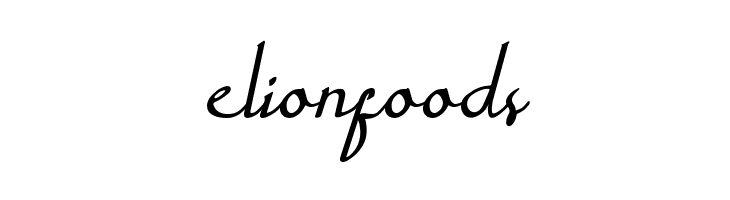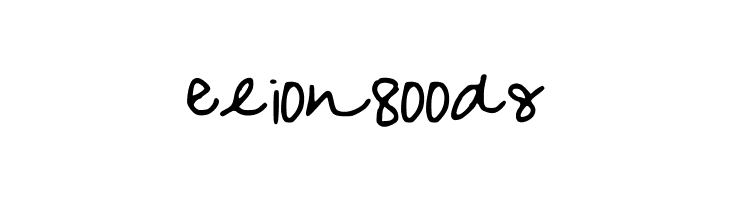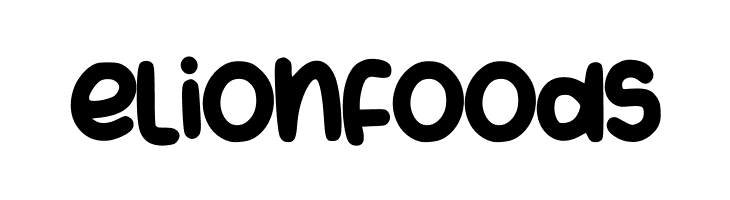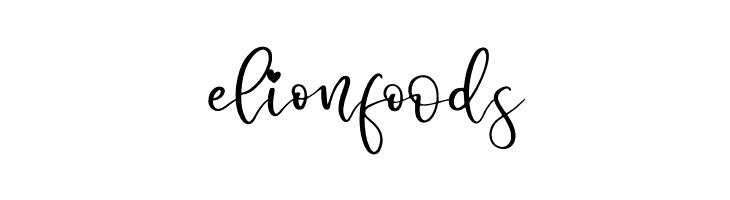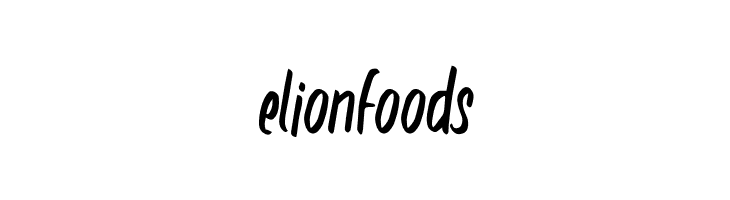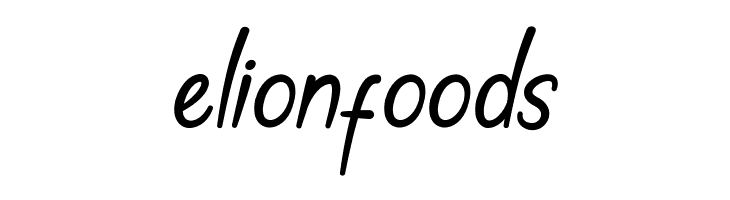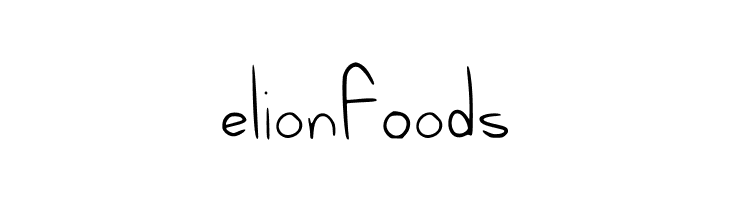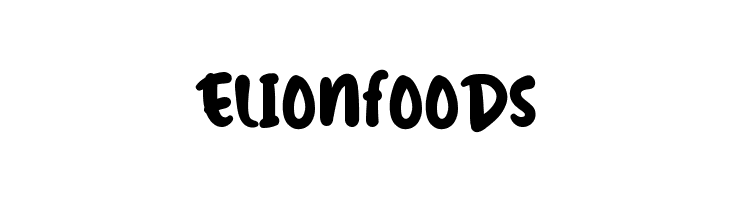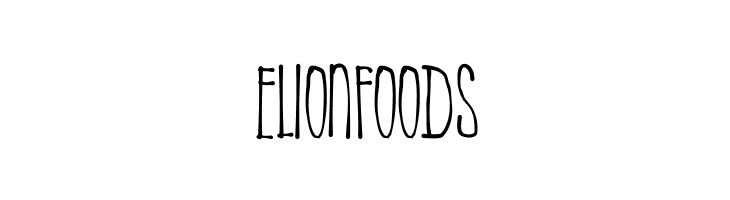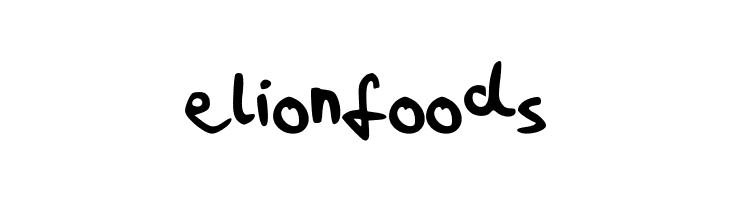
( Fonts by NihStudio )
A playful, handwritten cursive font with an italicized style.
( Fonts by Fatigo )
Playful, tall handwritten font with narrow, monoline characters.
( Fonts by Laura Iglesias )
A playful and casual handwritten font with a dynamic, informal style.
( Fonts by Anika Tovernic )
A playful, handwritten-style font with smooth, rounded strokes.
( Fonts by Belina Studio )
Bold, playful handwritten font.
( Fonts by Dave Griffiths )
A bold, expressive handwritten font with fluid strokes and artistic flair.
( Fonts by Type Factory )
A bold, energetic handwritten font with expressive strokes and a playful style.
( Fonts by Maulana Creative )
A modern, elegant handwritten font with fluid and cursive letterforms.
( Fonts by Sara Lombardo )
A playful, bold font with rounded, thick strokes and a whimsical style.
A fluid, elegant handwritten font with smooth curves and consistent stroke width.
( Fonts by MonkeyRoodles Fonts )
A playful, handwritten font with a whimsical and casual style.
( Fonts by M Ridwan )
A lively, expressive script font with fluid, connected letters.
( Fonts by nadeznuts )
A casual, handwritten font with a playful and approachable style.
( Fonts by Letterhend Studio )
A dynamic, fluid script font with elegant, interconnected strokes.
( Fonts by InspiraType )
A bold, handwritten font with a lively and dynamic style.
( Fonts by InspiraType )
A playful, handwritten font with smooth, medium-thick strokes and a dynamic slant.
( Fonts by Integritype Studio )
A playful, whimsical script font with a handwritten feel and charming embellishments.
( Fonts by Almen6ra )
Playful handwritten font.
( Fonts by fopifopi )
A playful, handwritten font with tall, narrow letterforms and medium contrast.